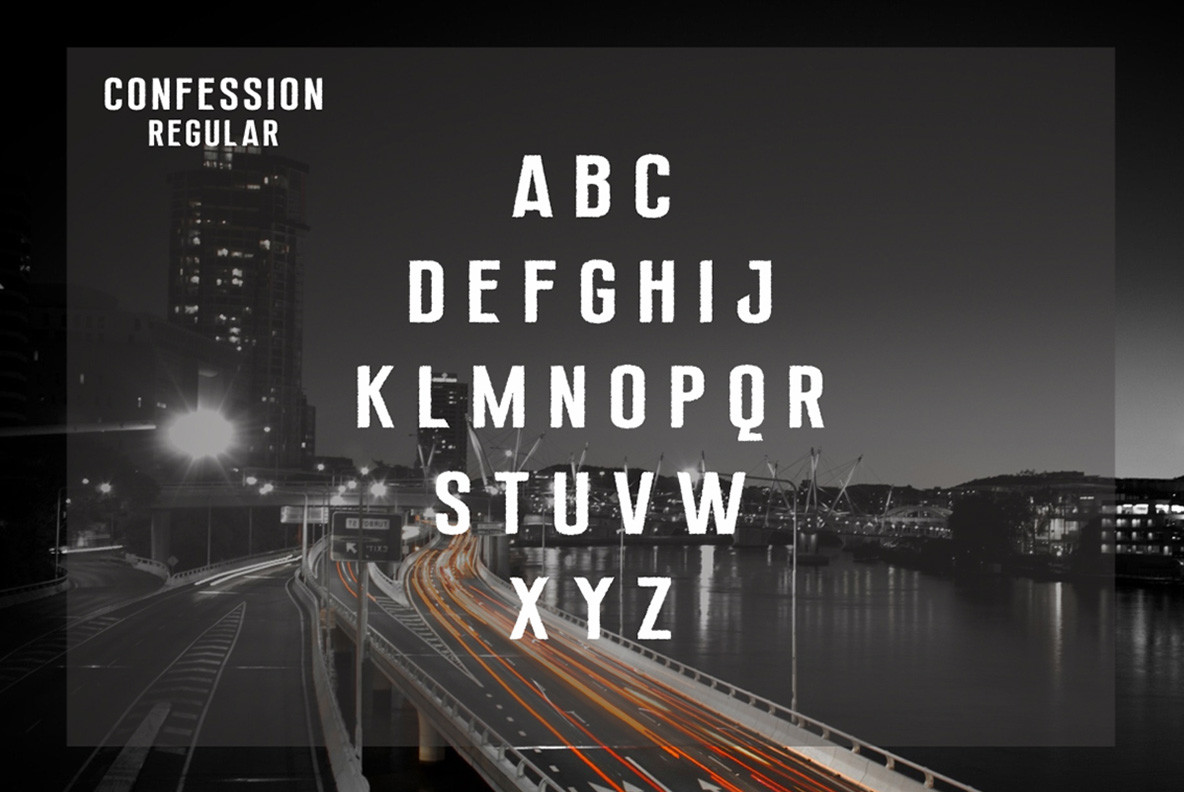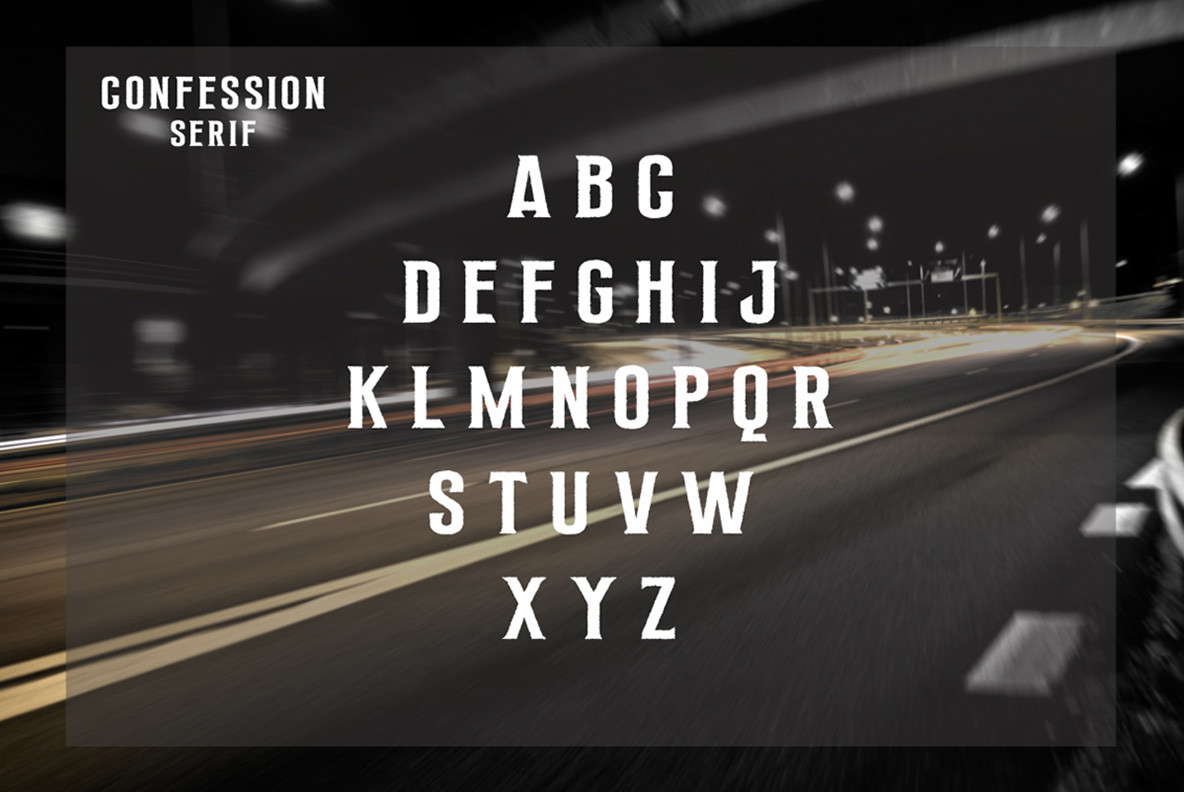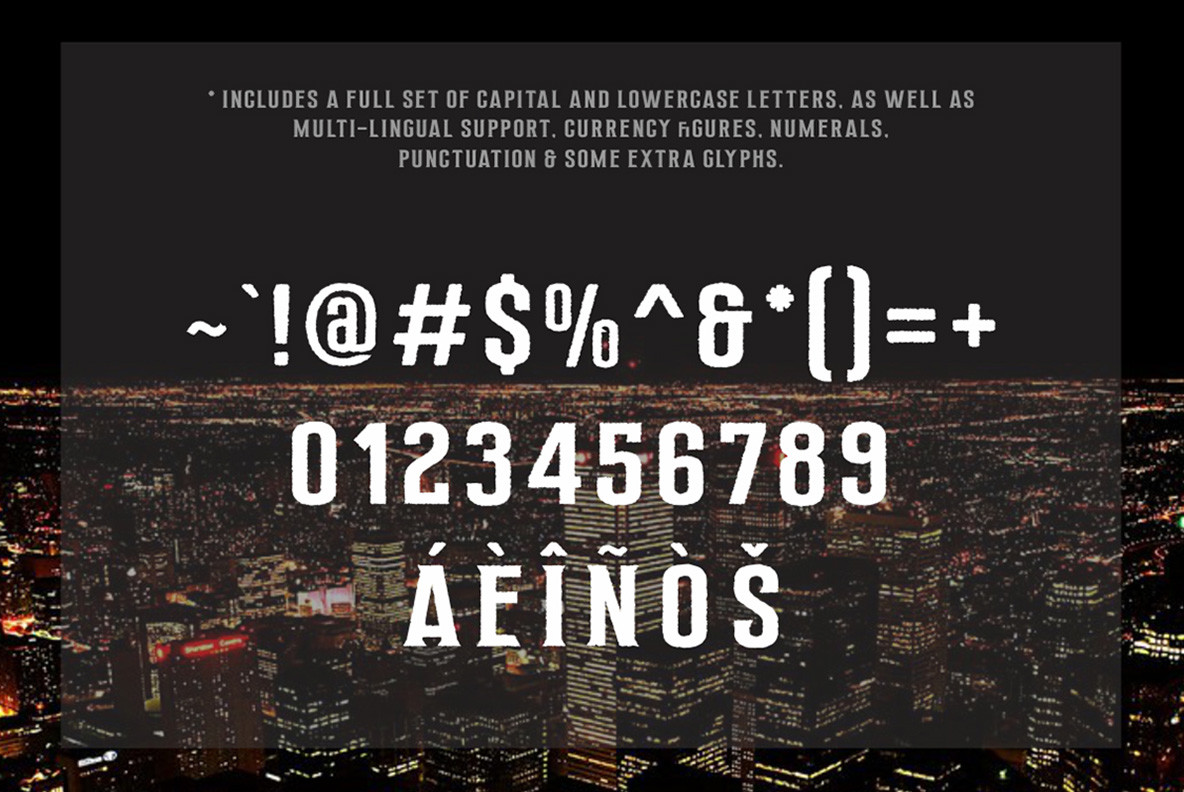
Confession 1
Confession is new font from Rvq Typefoundry, new typeface with classy, elegant and vintage feel character set. The Confession includes a full set of capital and lowercase letters, as well as multi-lingual support, currency figures, numerals, punctuation & some extra glyphs.